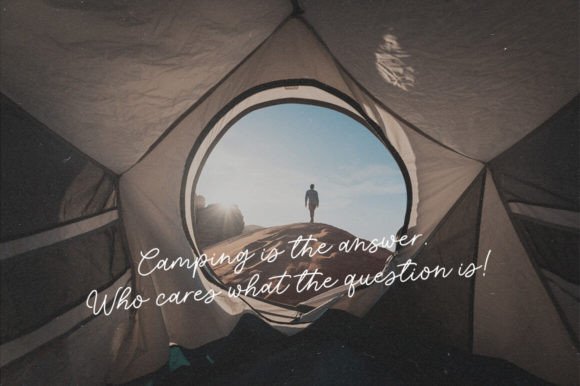
Ocarina Camila Font
Introducing the new Ocarina Camila script font – A beautiful and super-chilled new handwriting font script with some sexy swashes, connecting hearts, and stylish ligatures. Can be used for various purposes. such as headings, signatures, logos, wedding invitations, t-shirts, letterheads, signage, labels, news, posters, badges etc.